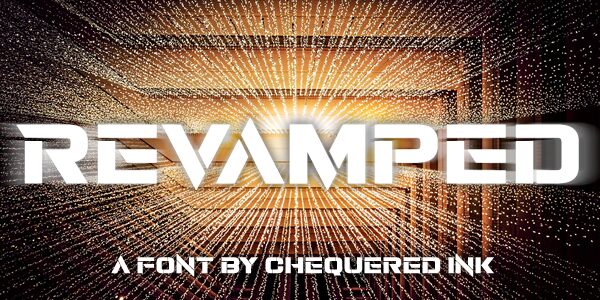
Revamped, the bold and extra-expanded display font designed by Allison James, is sure to catch your eye. With its military-inspired stencil style, this typeface is perfect for creating impactful designs that demand attention. Whether you're working on a project for the armed forces or simply want to add a touch of edgy sophistication to your branding materials, Revamped has got you covered. Use it in posters, logos, packaging or any other design project where you want to make a statement. Its bold weight and extra-expanded width make it ideal for headlines and titles that need to stand out from the crowd.
Revamped
Revamped by Chequered Ink.